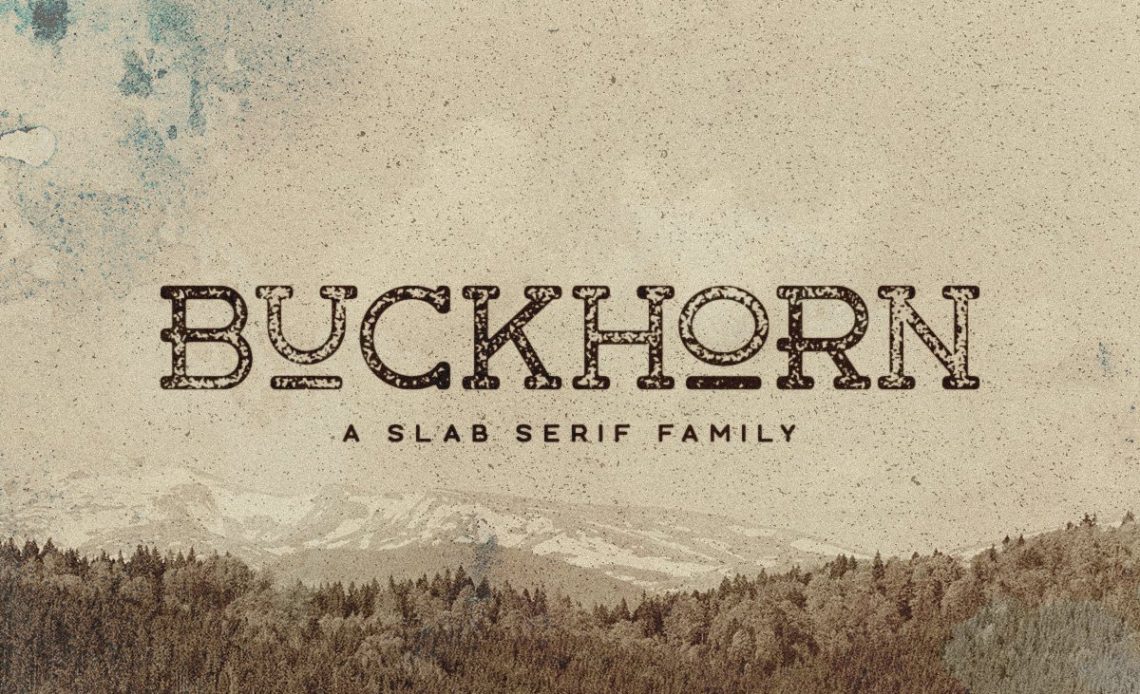
Introducing Buckhorn Typeface, the perfect font for designers looking for a unique and captivating slab serif. With four style options, Buckhorn offers a versatile range of fonts suitable for a variety of designs. Created by Mehmet Tugcu, a talented UI and type designer, Buckhorn boasts an array of alternate letters, making it a highly customizable font for any project.
Buckhorn is perfect for those who want to add an extra edge to their designs. Its thick, sturdy lines convey a sense of strength and boldness that's sure to capture your audience's attention. Whether you're creating a logo, designing a website, or developing marketing materials, Buckhorn is a font that will leave a lasting impression on your audience.
One of the best things about Buckhorn is its flexibility. The font's alternate letters allow you to toggle between different styles with ease, making it a highly customizable font for any project. Whether you want a classic, vintage look or a more modern, edgy feel, Buckhorn has got you covered.
Mehmet Tugcu, the creator of Buckhorn, is a renowned UI and type designer known for his attention to detail and commitment to creating high-quality designs. With Buckhorn, you can trust that you're getting a font that's been carefully crafted with precision and passion.
In conclusion, if you're looking for a font that will elevate your designs and capture your audience's attention, Buckhorn Typeface is the perfect choice. With its versatile range of styles, customizable alternate letters, and expertly crafted design, Buckhorn is a font that's sure to make your designs stand out from the crowd. Contact Mehmet Tugcu via his website for any questions or inquiries.